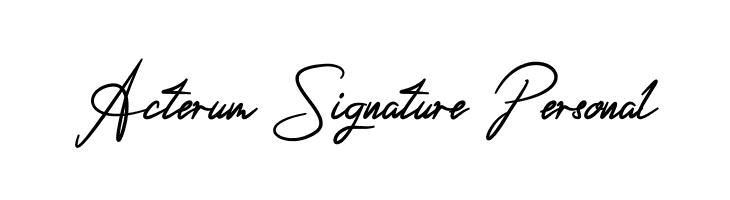
A geometric, paper-fold inspired font with bold, angular lines.
A bold, playful font with irregular, hand-drawn shapes and a unique, artistic flair.
A modern, geometric font with rounded rectangular shapes and consistent line thickness.
A graceful and sophisticated script font with flowing, interconnected letters.
A bold, playful handwritten font with an organic and friendly style.
A clean, minimalist font with thin, uniform strokes and a modern design.